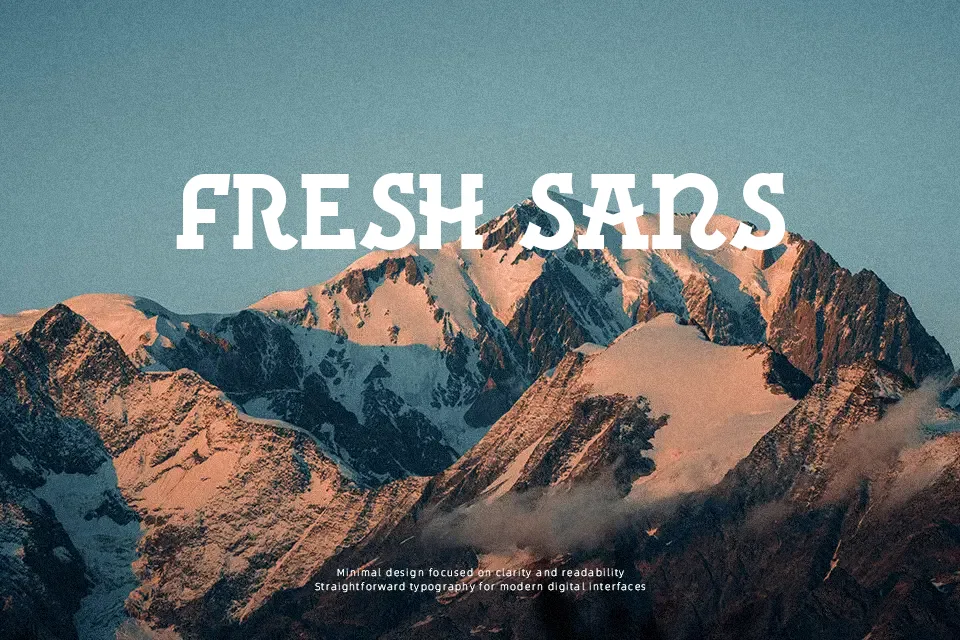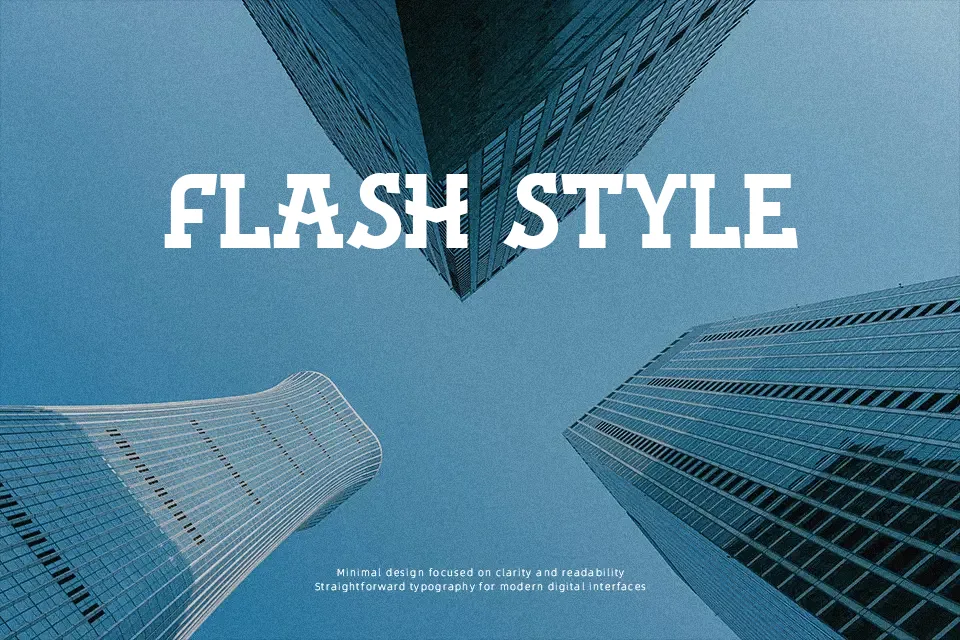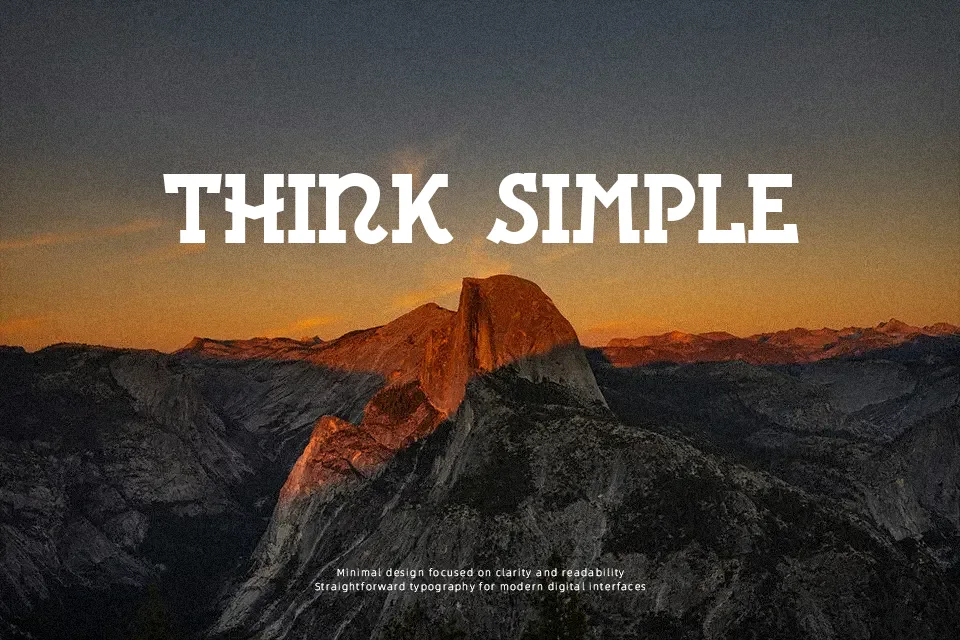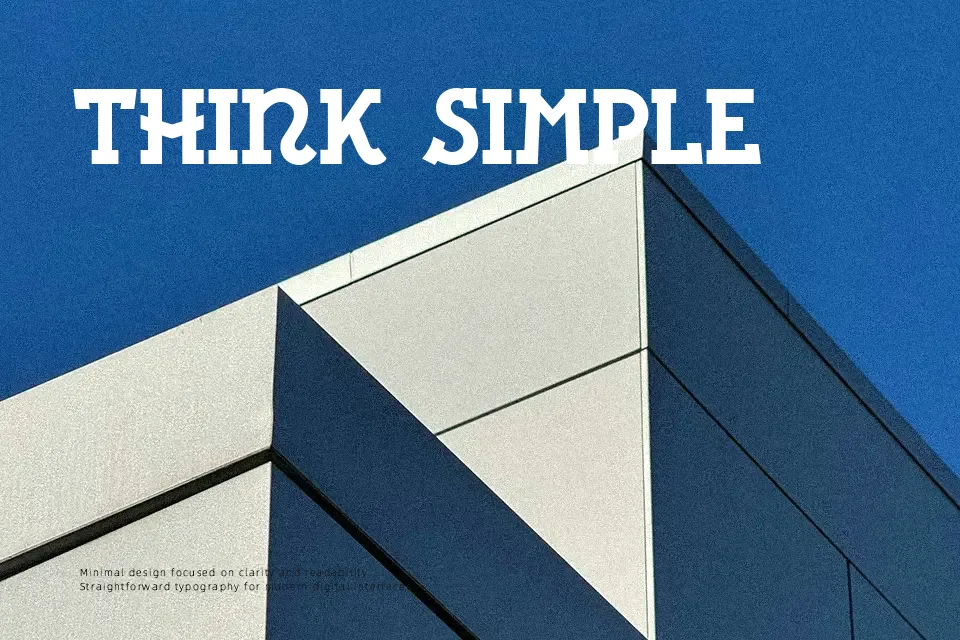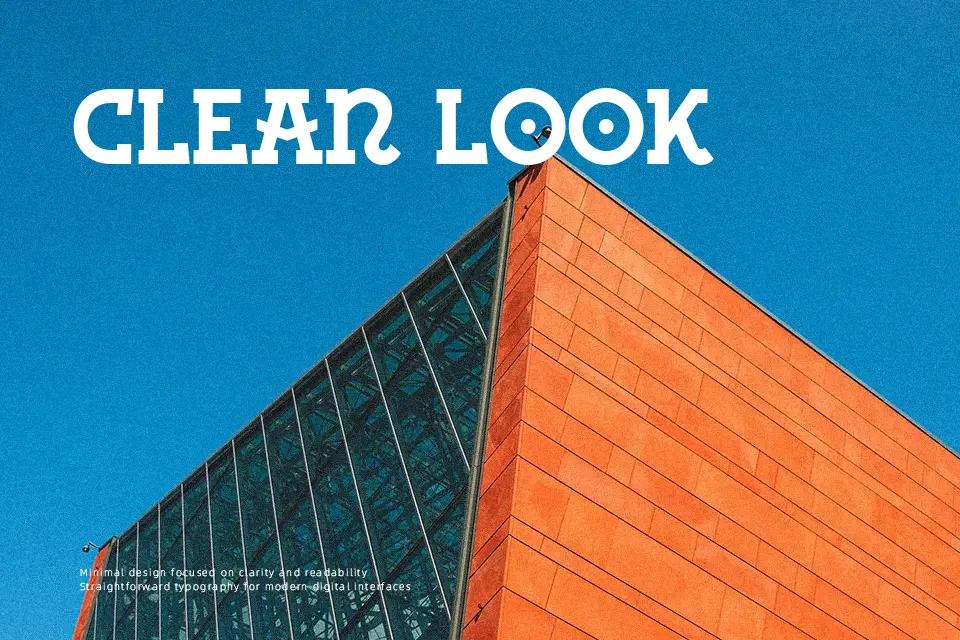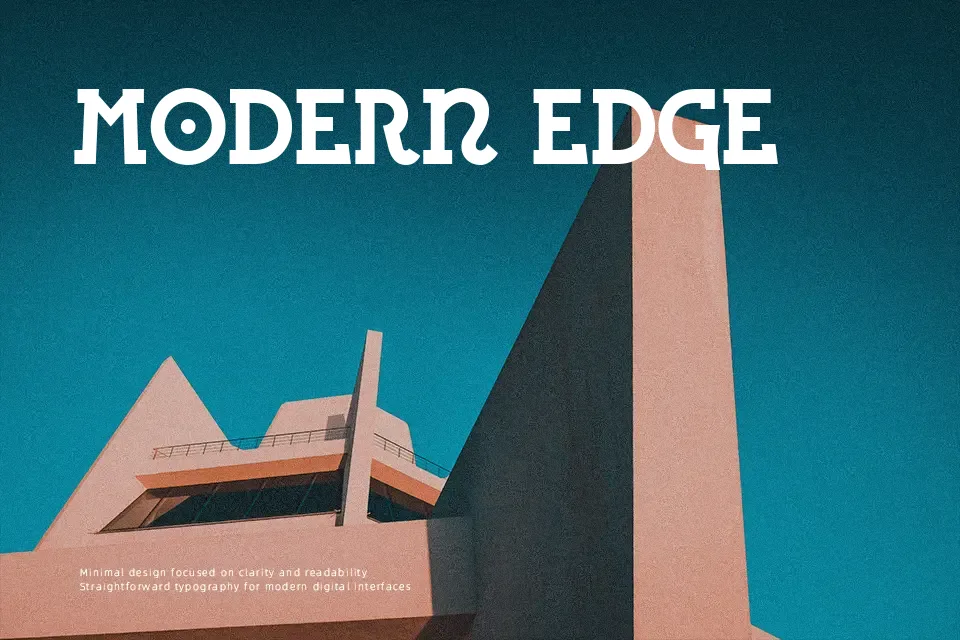
Rita Slab Font
Rita Font introduces a traditional Galician aesthetic through heavy, slab-like letterforms that demand attention in display environments. The sturdy strokes and confident proportions create a solid rhythm across large headlines and cultural event posters. Its thick visual weight ensures excellent visibility at larger sizes, drawing inspiration from historic stone-carved lettering. The substantial serifs and compact spacing help maintain a cohesive block of text in short titles. However, these same heavy characteristics can cause the forms to feel overly dense when reduced to small captions. The robust letterforms perform best when displayed at larger scales, where their rugged personality remains fully readable without sacrificing artistic impact.
Best For: cultural event posters, restaurant signage, heritage branding, festival headlines
Not Ideal For: dense editorial layouts, small interface labels, corporate reports, long paragraph text
Perfect for branding, headline, and poster, with a ancient and decorative style.